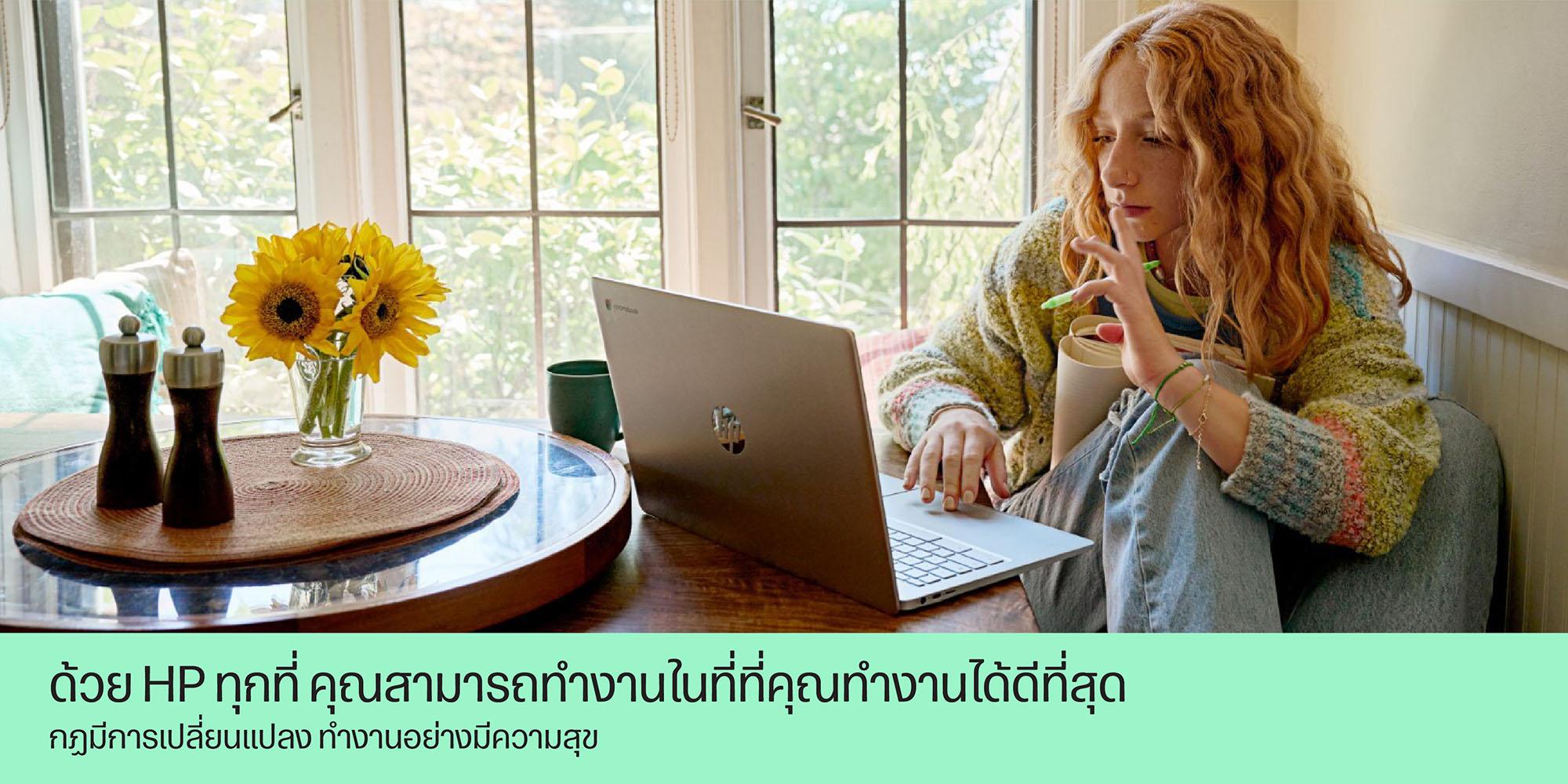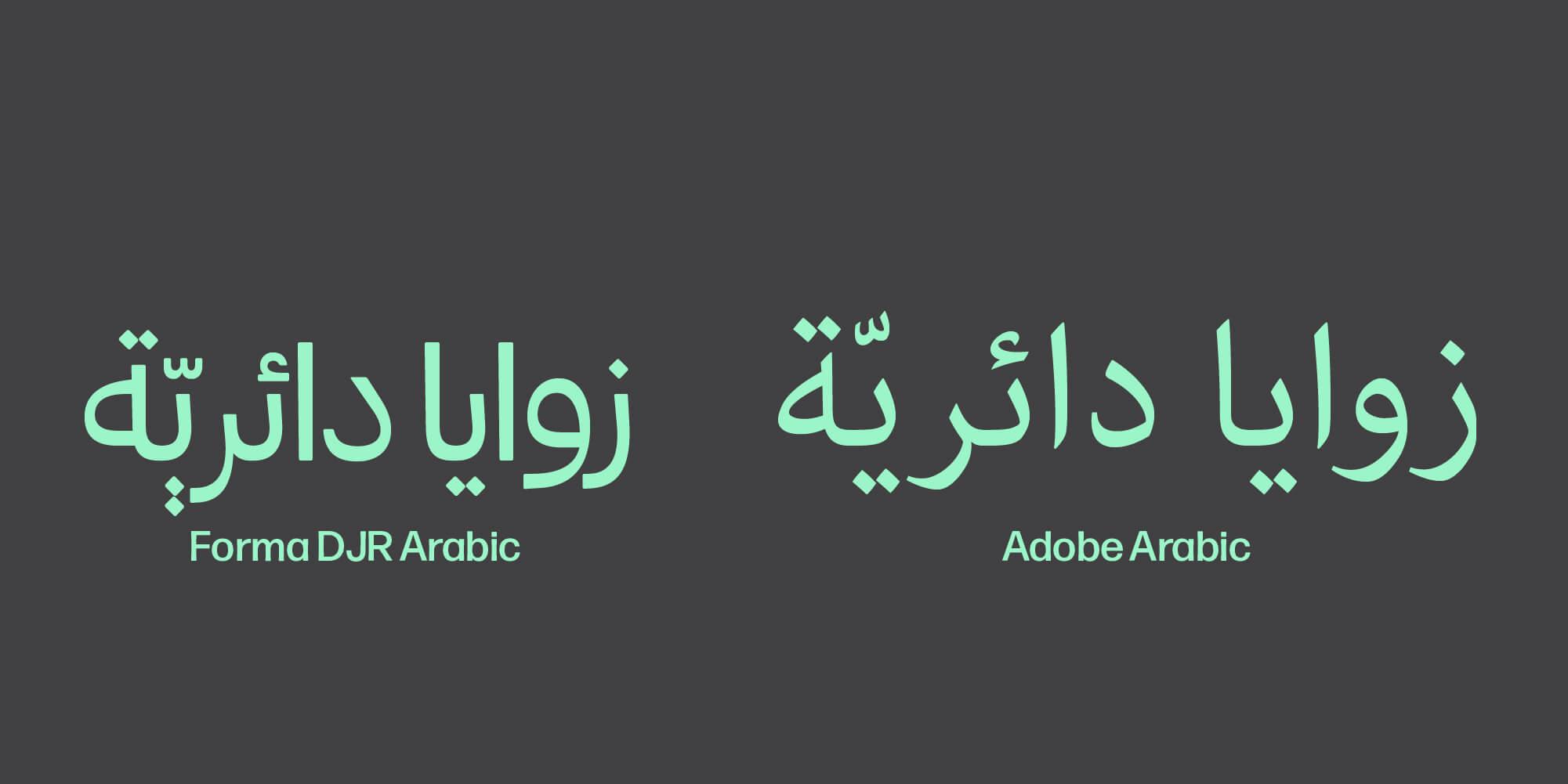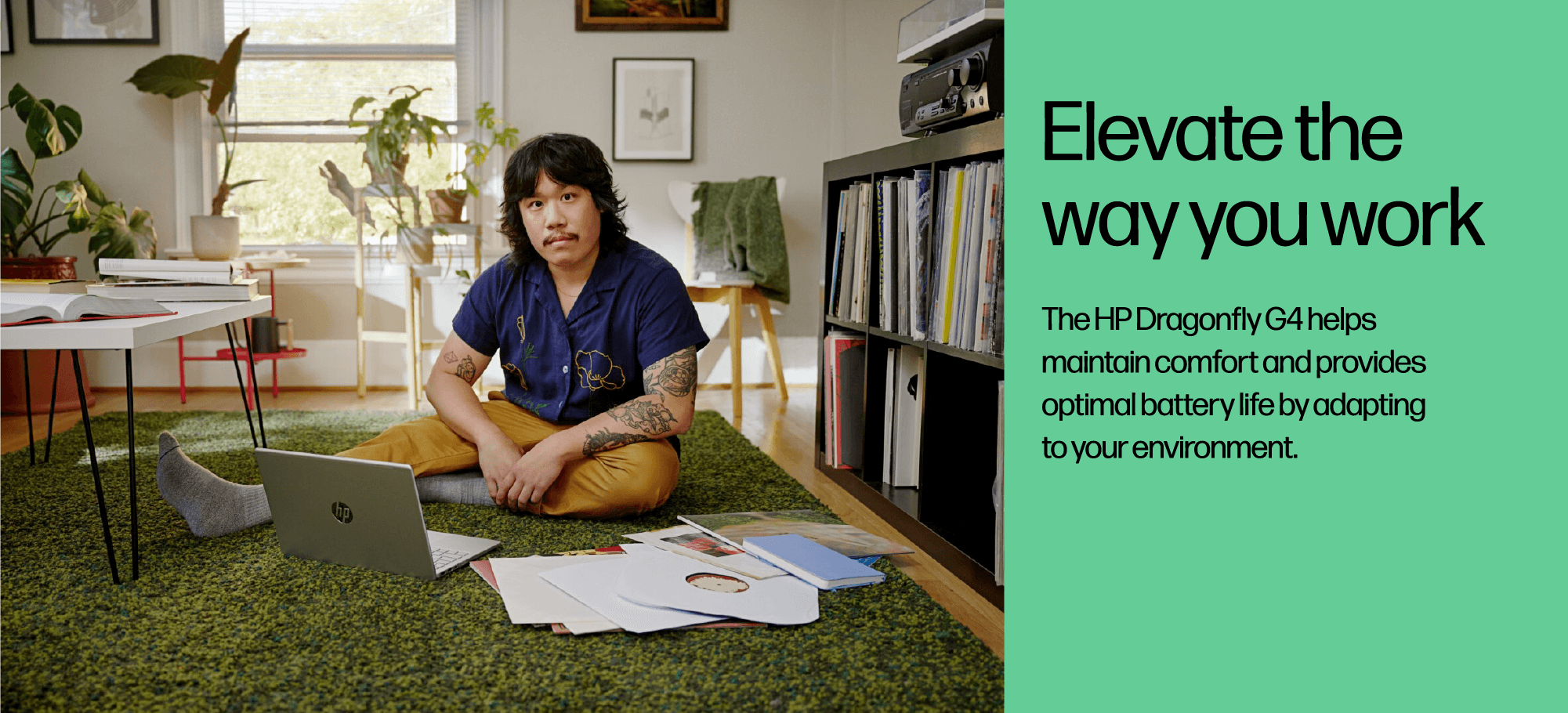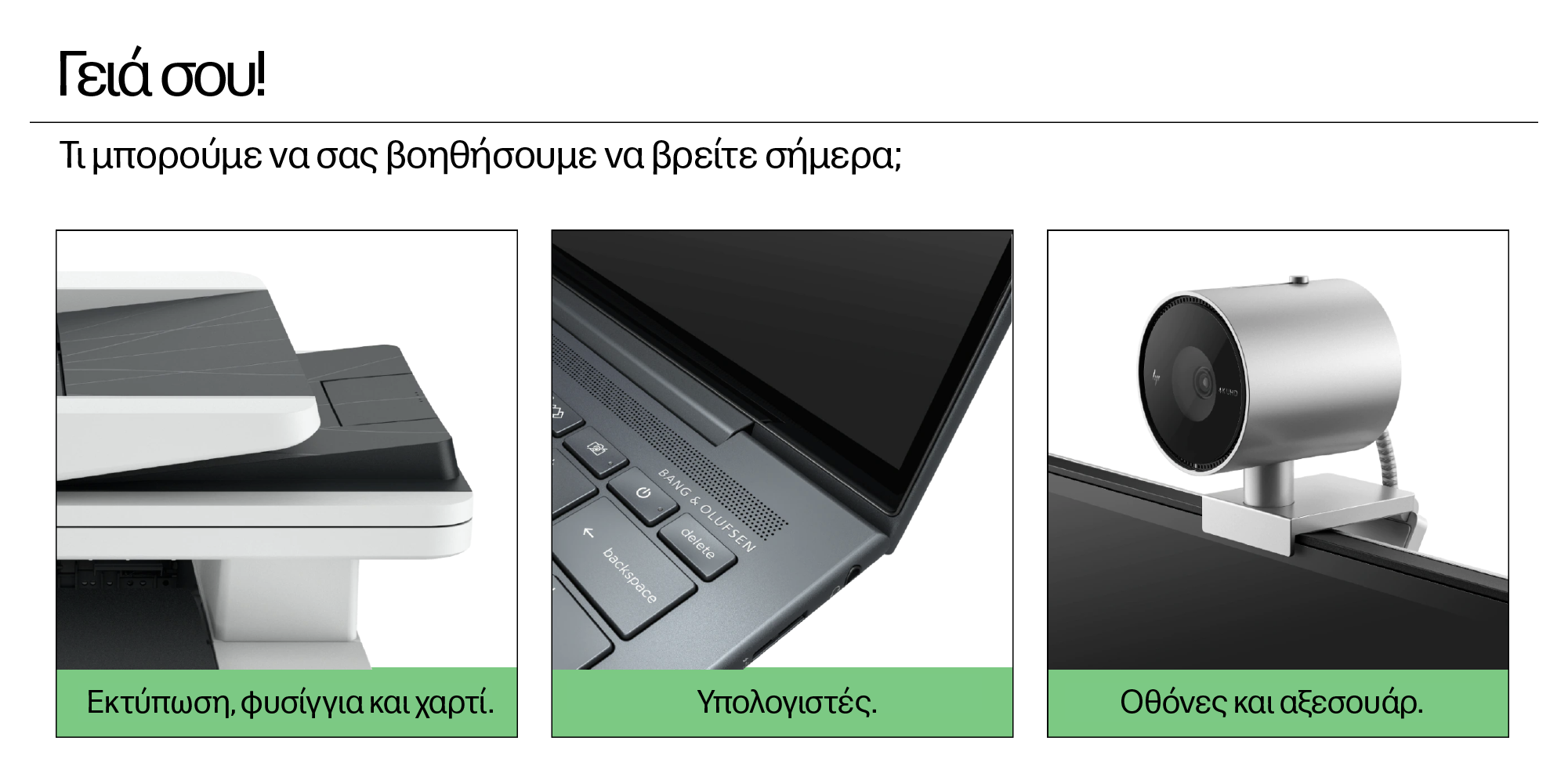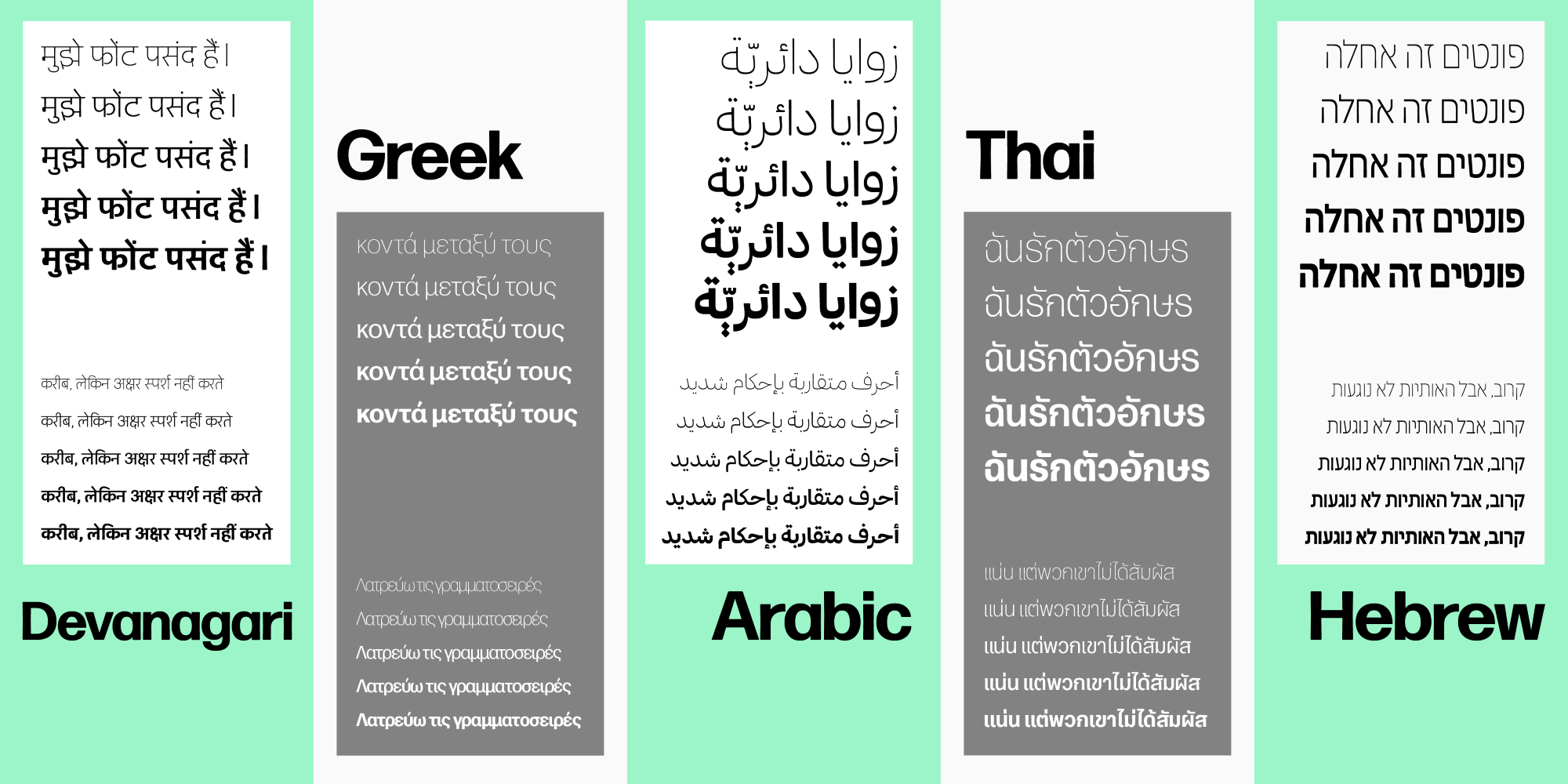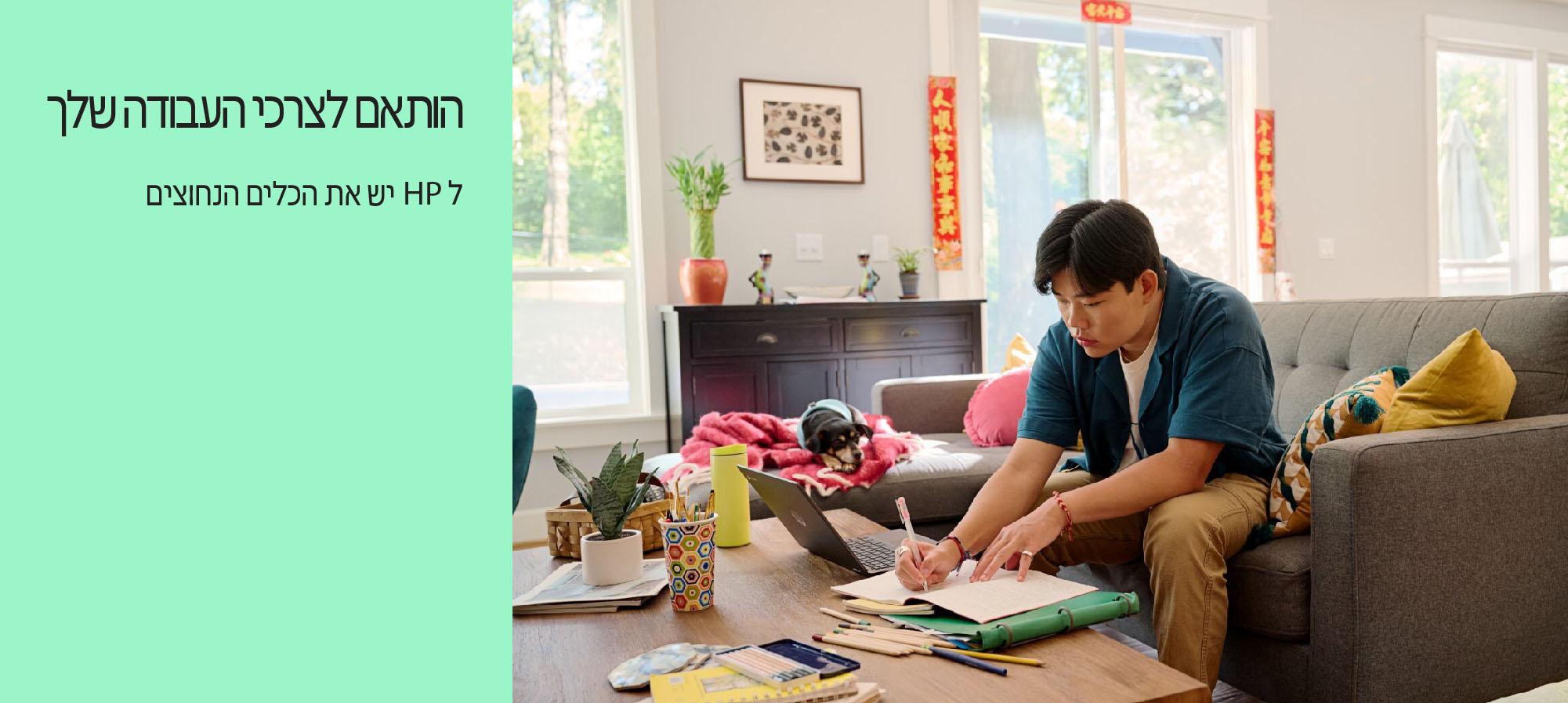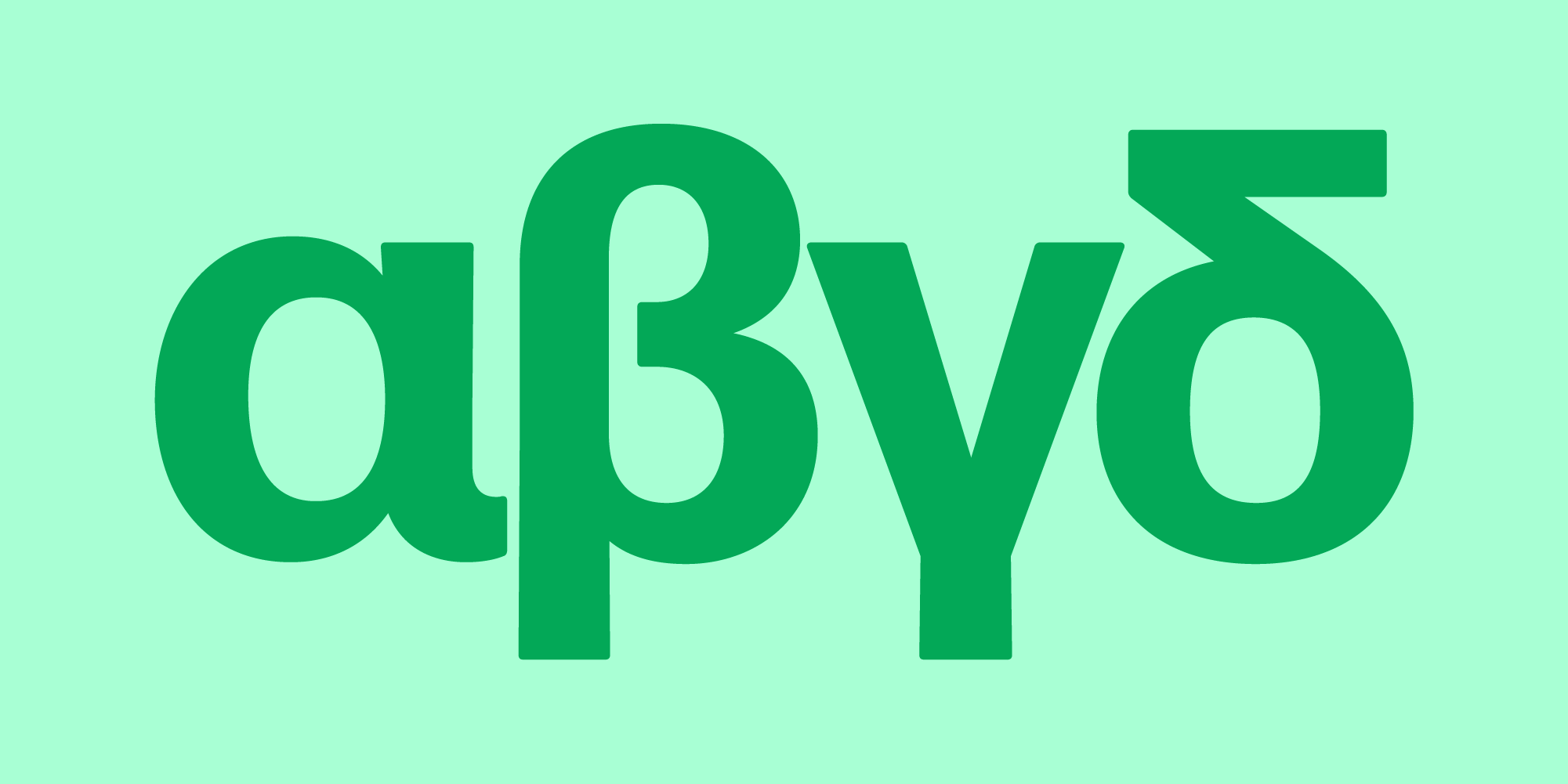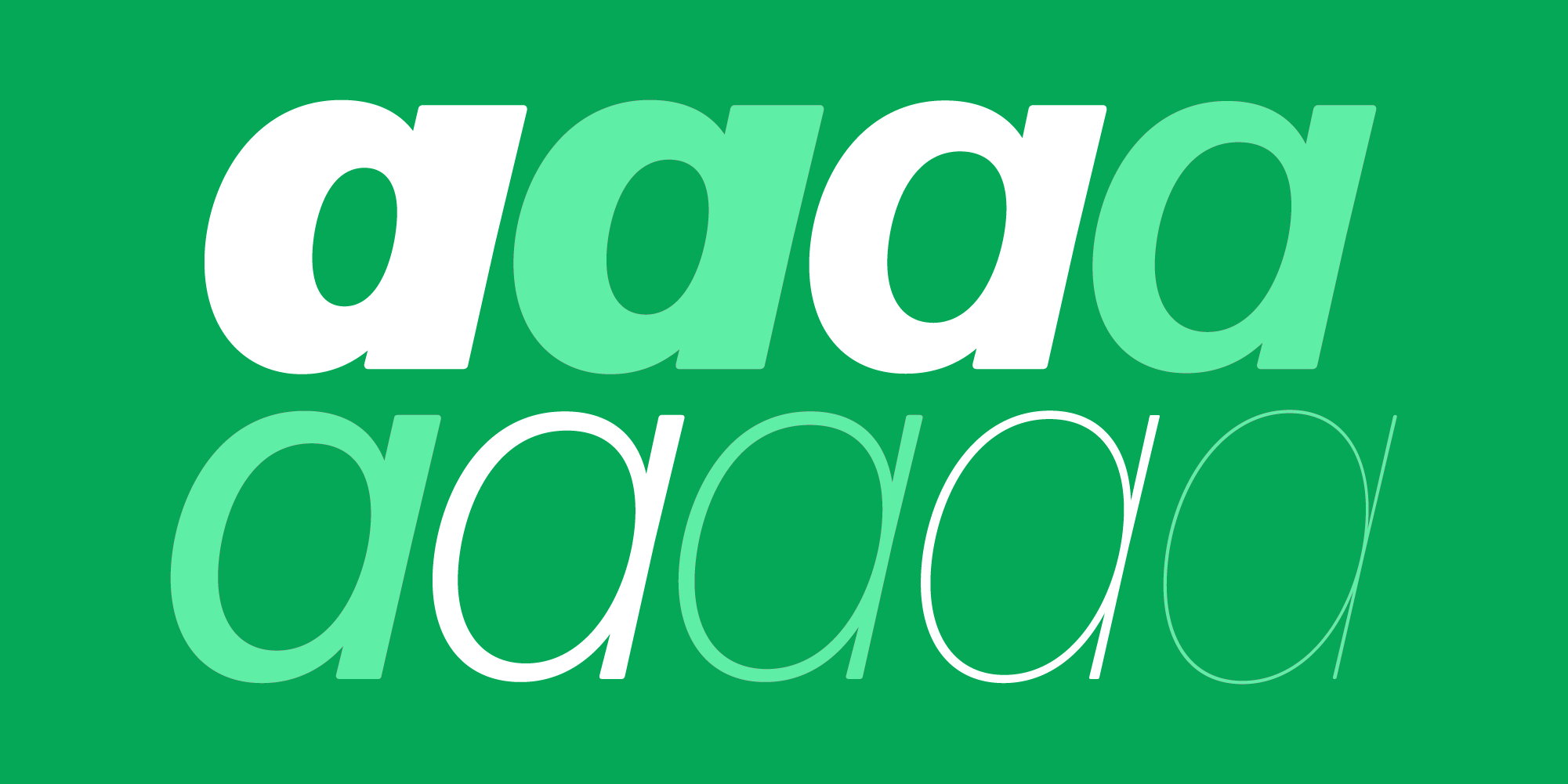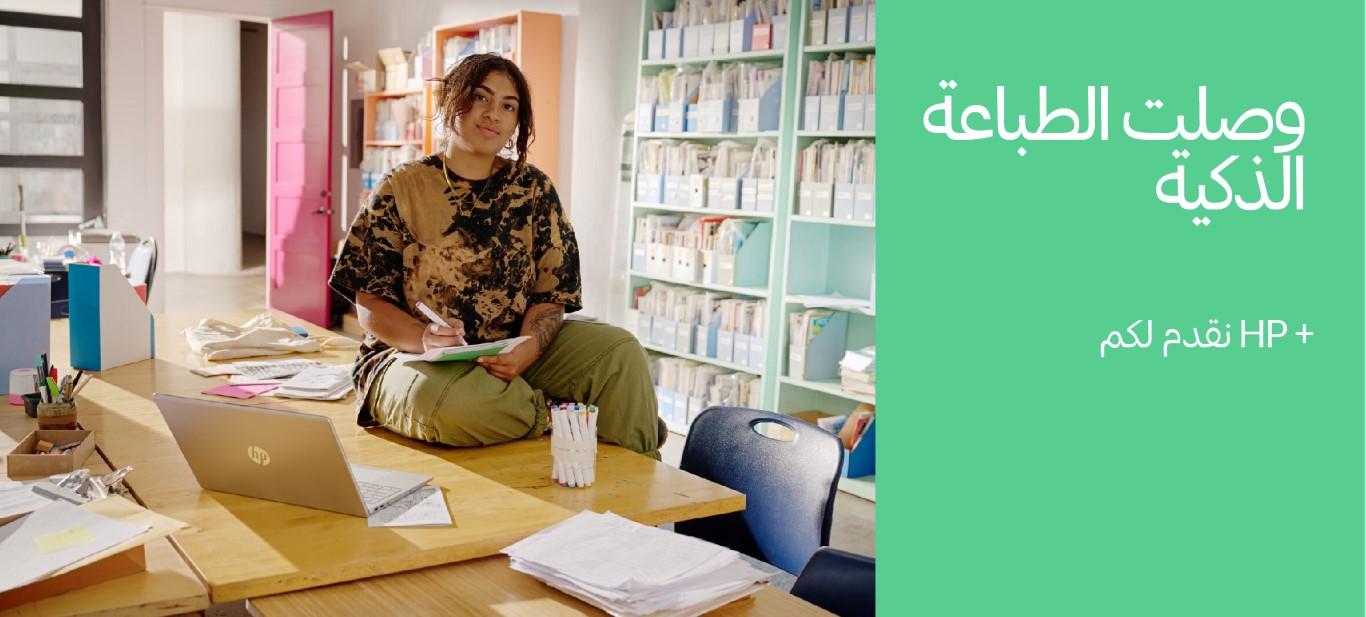
Tech giant HP Inc. switched their brand typeface from HP Simplified to Forma DJR as a part of a global upgrade in the voice of their brand. As a new design language spread to reach global markets, they asked TN partner foundry DJR for a license to the Latin styles of Forma DJR—and then asked to expand the family to include Arabic, Devanagari, Greek, Hebrew, and Thai scripts. David Jonathan Ross, a TN partner and shareholder, turned to TN, and our director of custom type Dyana Weissman got to work, finding the right designer to bring Forma to each language.
Type Network commissioned eight type designers from six countries to develop the scripts: Aleksandra Samuļenkova took on Forma DJR Greek; Tanya George worked on Devanagari; Wael Morcos and Khajag Apelian made Arabic; Liron Lavi Turkenich was enlisted for Hebrew; Knaz Uiyamathiti of Cadson Demak developed Thai; and Type Network partner Victoria Rushton was brought on for drawing additional Latin characters.
Using Forma DJR as a starting point, each design team worked independently to draw their assigned script. At a project midpoint, the designers shared proofs of their work with the whole team, creating an opportunity to incorporate new inspiration and techniques from the others. This produced an international, integrated typeface.
With Weissman as project manager, the designers handled the job of imposing Forma DJR’s hyper-rationalist dogma of tight spacing, closed counters, and brutal minimalism onto the curvaceous and open counters of scripts like Greek, Arabic, and Thai. Despite these constraints, there were two entry points for the scripts. The subtle incurves of the stems give Novarese’s original design a warmer feeling than, say, Helvetica. DJR added the second: slightly rounded corners.
The designer of the Greek script, Aleksandra Samuļenkova, had to consider whether some letters should have in-strokes (η) and exit-strokes (α, μ). "Strokeless" letters are not uncommon in Greek typefaces. Sometimes they are made in the effort to be "modern." Sometimes they originate from extensions of Latin fonts made by designers who don't think the strokes increase readability. A number of professional native Greek type designers are embracing Latinized Greek letter shapes, as a natural evolution of the script.
To respect the integrity of the Greek script, Samuļenkova normally wouldn’t dream of leaving these strokes out. However she saw that the rhythm of the text was more Forma-like without the strokes. It was tempting to gratify the spirit of the typeface at the cost of tradition and legibility.
After reflecting on the options and consulting with Ross and Weissman, Forma DJR Greek was designed with a hybrid solution of the in- and exit-strokes in the η, α, and μ.
Forma DJR Arabic designers Wael Morcos and Khajag Apelian had their own approach to the needs of the Arabic writing system. They further rounded Forma’s corners, softening the design and lending a tactile quality that evokes the sense of ink on paper. Then they integrated tapered stems by modulating the vertical strokes, most visibly in the alefs and lams, accentuating this feature of the Latin. This slight flaring gives the typeface a quirky and friendly attitude.
The optical sizes of the Arabic script addressed the issue of spacing in specific ways: The Micro size has relaxed spacing. The Banner size is very tightly spaced, giving the typeface a compact look when used in its intended larger sizes. Apelian and Morcos achieved tight spacing for the ordinarily open and loose Arabic script.
First, the connection stroke entering and exiting the medial forms of the letters was shortened without changing the proportion of the letters themselves.
Second, they added kerning pairs to reduce the gap that occurs after some letters, like rah (ـر). In other letter combinations, the horizontal two dots above and below the nabirah were replaced by a contextual alternate consisting of vertically stacking dots. Finally, the vocalization marks were given a steep angle, allowing them to fit in a tighter horizontal space, avoiding undesired overlaps.
This project required a feat of coordination amidst a global pandemic. Drawing the custom scripts took four and a half months, including the addition of some new Latin characters to fill in HP’s specifications. The result is a suite of scripts that stand confidently on their own, while cohering as a series under the Forma DJR umbrella.
One of the cool parts is that Forma comes in a range of weights and optical sizes, so even though a lot of liberties were taken, they’re still matching the weight range. Some of these scripts don’t have a lot of typefaces with different optical sizes, so this is blazing a new trail.
Once the script designs were finalized, Type Network put each of them through our rigorous technical review process, helmed by library manager Maria Glenda Bellarosa and font engineer Guido Ferreyra. Attention to all the small details guaranteed not only that the new scripts would integrate seamlessly with the existing ones, but also ensured that each font would function in every relevant use case required by the client, from tiny sizes on screens to large sizes in print, and everything in between and beyond. Bellarosa specifically brought along her years of experience with global scripts from her time working on Google’s Noto fonts. This added an extra layer of assurance that every script would be carefully reviewed by someone who understands its particular nuances.